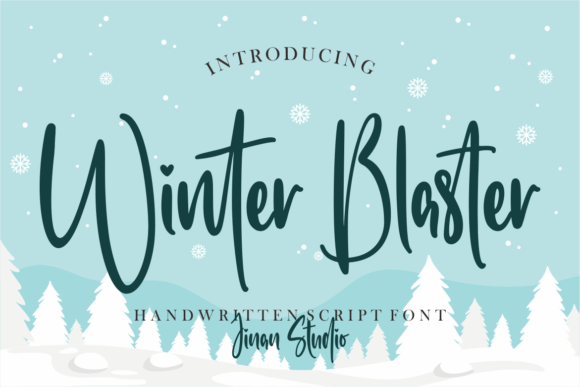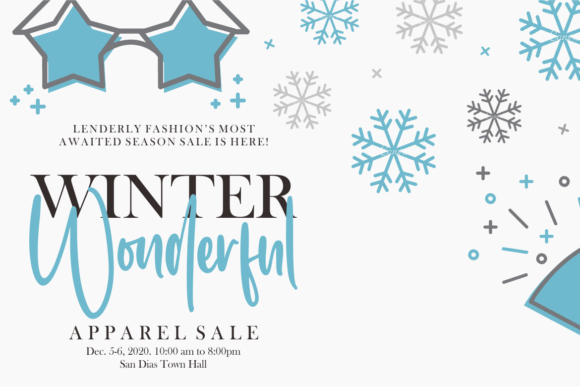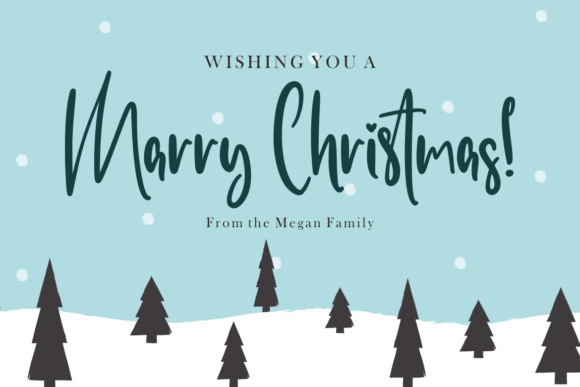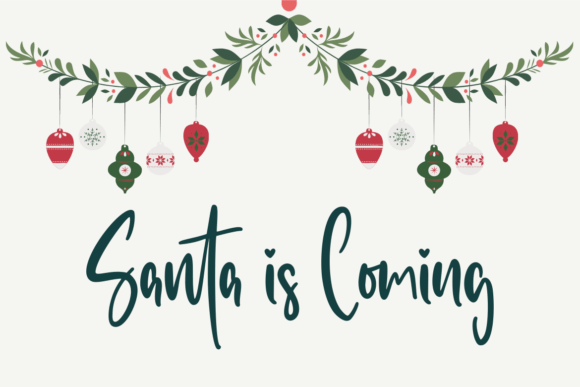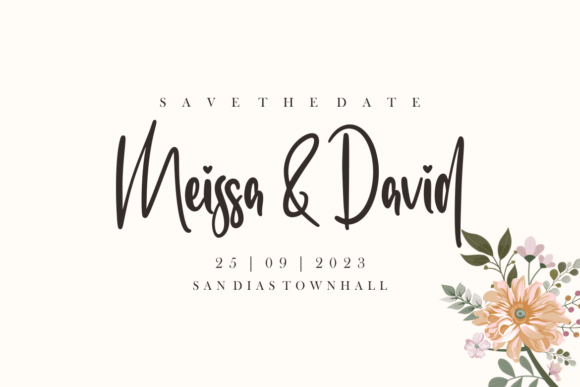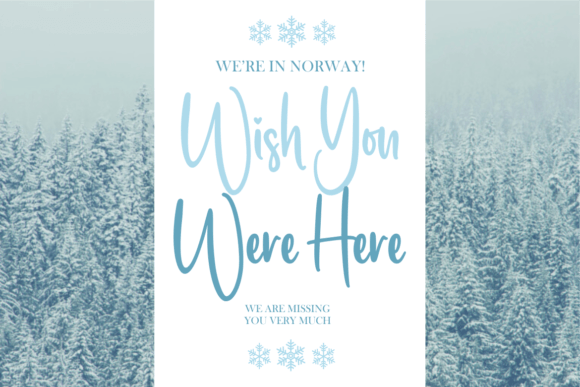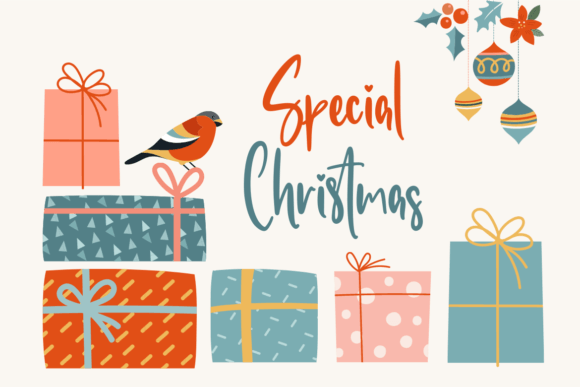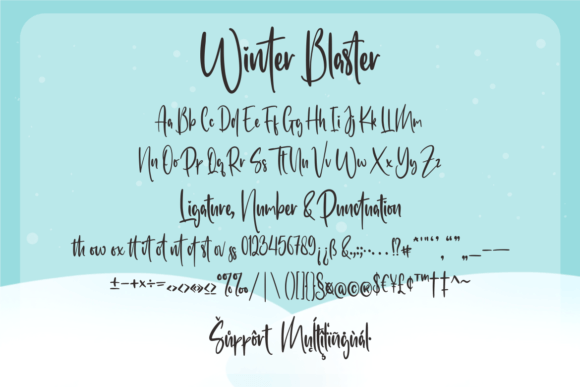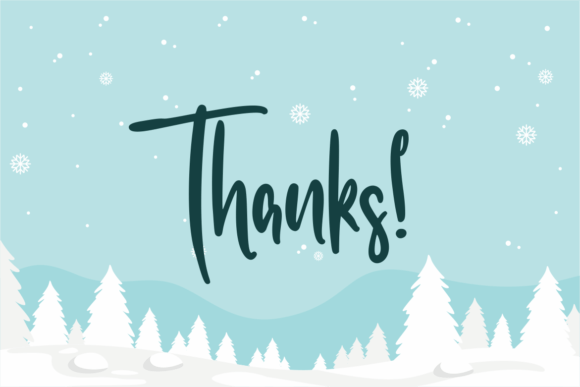
Winter Blaster Font
About Winter Blaster Font
“Winter Blaster” is a stylish, modern, and elegant handwritten script font that offers a wide spectrum of applications. From greeting cards to headlines and beyond, this font brings a romantic touch to each of your creations, making it a versatile and charming addition to your design toolkit.
The stylish and modern design of “Winter Blaster” makes it well-suited for various projects where an elegant handwritten script is desired. Whether you’re working on greeting cards, headlines, or any other design application, this font adds a touch of sophistication and romance to the text.
In greeting cards, “Winter Blaster” becomes a stylish choice for conveying messages with a romantic flair. Its elegant script enhances the sentiments, creating cards that are not only visually appealing but also emotionally resonant.
For headlines, the modern and stylish nature of “Winter Blaster” ensures that your text stands out with a contemporary and refined look. Whether used in digital or print media, this font adds a touch of sophistication to the visual hierarchy.
The versatility of “Winter Blaster” allows it to adapt to a wide range of design applications. From invitations and branding to social media graphics and more, the font brings a romantic and elegant quality that elevates the overall aesthetic.
Adding a romantic touch to each of your creations, “Winter Blaster” can be a valuable asset for designers aiming to infuse their projects with a sense of style and emotion. Its handwritten script adds a personal and authentic feel, making it suitable for a variety of creative endeavors.
In summary, “Winter Blaster” is a stylish, modern, and elegant handwritten script font that guarantees a romantic touch to your creations. Its versatility makes it suitable for a wide spectrum of applications, allowing you to add a sophisticated and charming element to your design projects.